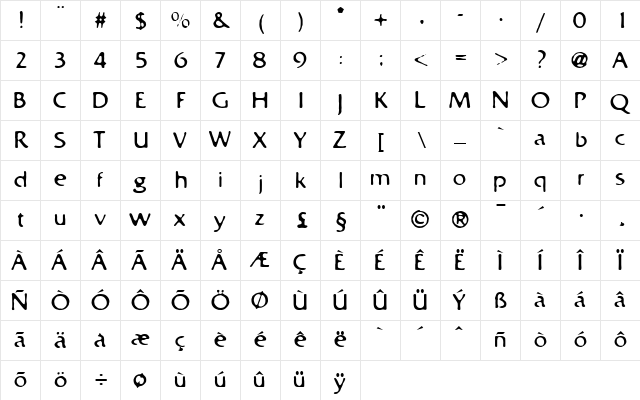
Bastard Regular Free Font
Bastard Regular
Design Context for Bastard
Bastard is a composed and adaptable typeface that performs quietly and consistently across a wide range of design contexts.